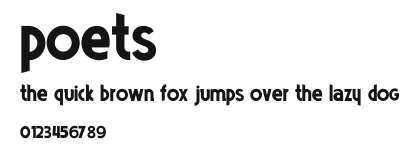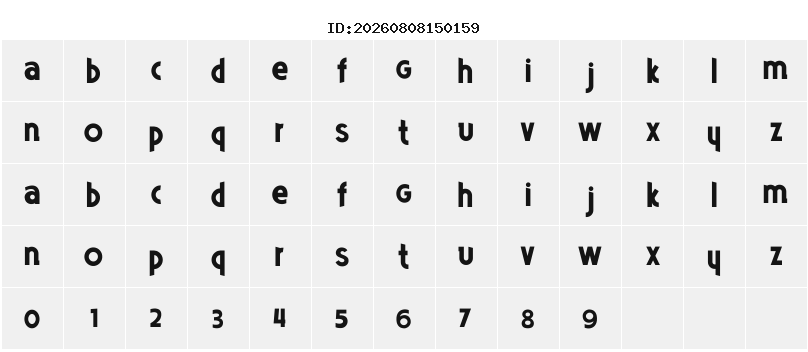
• Font Name: Poets
• Designer: Junior Souza
About Poets.ttf
Poets.ttf is a modern, elegant sans-serif font designed for ultimate readability and visual harmony. Perfect for branding, headlines, web design, and print materials.